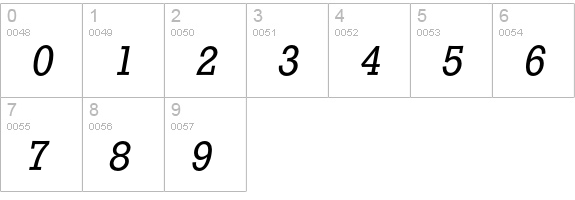
Stafford-RegularIta Font Details
Stafford-RegularIta is a visually stunning font that exudes elegance and sophistication. With its italicized design, it adds a touch of flair to any project or design. The graceful curves and delicate details of each letter create a sense of refinement and professionalism. This font is perfect for a wide range of applications, from logo design and branding to invitations and editorial projects. It effortlessly captures attention and creates a lasting impression. What sets Stafford-RegularIta apart is the fact that it is freely available to download at FontsMarket.com. This means that you can enhance your designs with this beautiful font without any cost. The accessibility of this font allows designers and creatives to explore their creativity without any limitations. Whether you are a professional graphic designer or someone who simply enjoys experimenting with typography, Stafford-RegularIta is a must-have in your font library. Its versatility and timeless appeal make it a valuable asset for any project. So why wait? Visit FontsMarket.com today and download Stafford-RegularIta for free. Elevate your designs and make a lasting impression with this exquisite font.